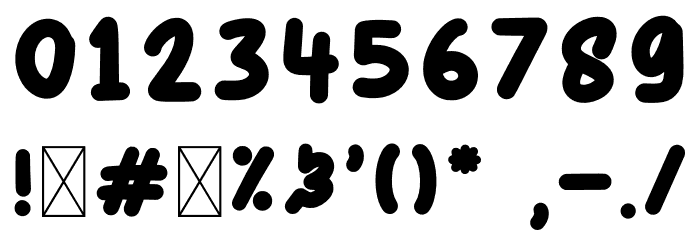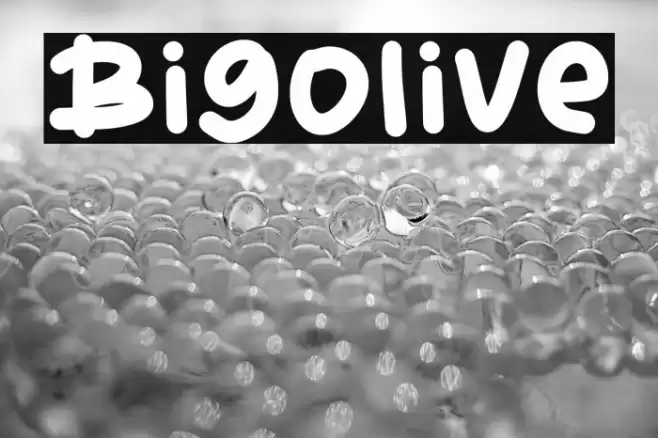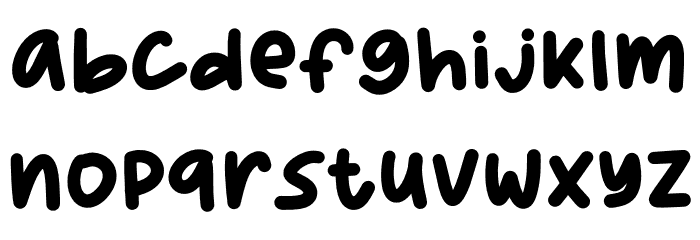
Bigolive Font
This font features a playful and bold handwritten style, characterized by its rounded and smooth letterforms. The uppercase and lowercase letters maintain a consistent thickness, giving it a cohesive look. The numbers and special characters follow the same aesthetic, ensuring uniformity across all glyphs. Its informal and friendly appearance makes it suitable for creative and casual applications. The font's strokes are thick, contributing to its bold presence, while the character spacing is relatively tight, enhancing its compact and energetic feel. The overall style is modern and whimsical, making it an excellent choice for projects that require a touch of personality and flair.
A playful, bold handwritten font with rounded, smooth letterforms.
• Proposed Projects: Ideal for children's books, playful branding, greeting cards, and social media graphics.
• Category: Handwritten
• Character Spacing: Tight
• Contrast: Low
• Overall Style: Modern, Whimsical
• Use Case: Headlines, Logos, Informal Text